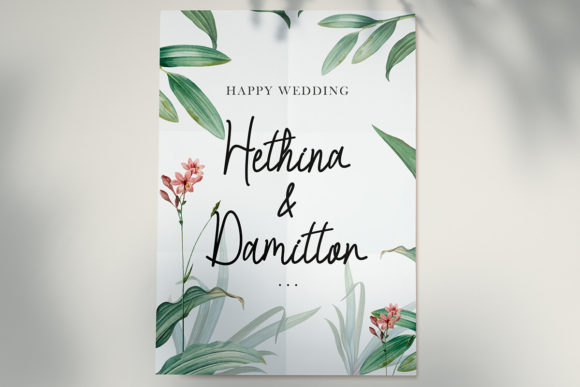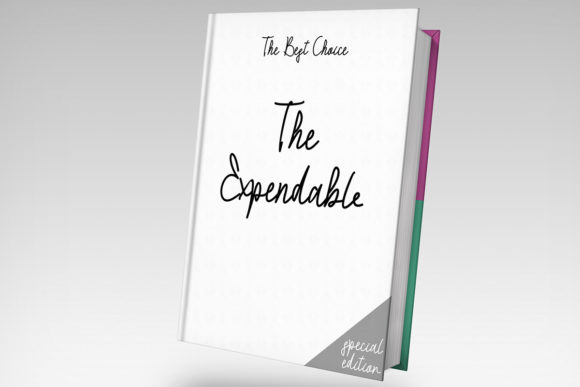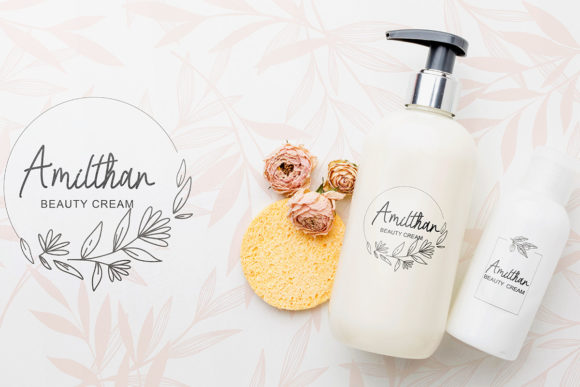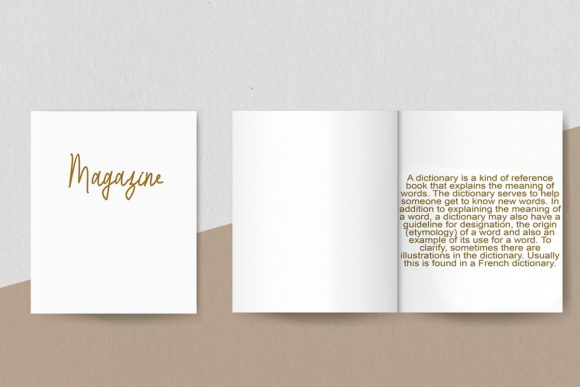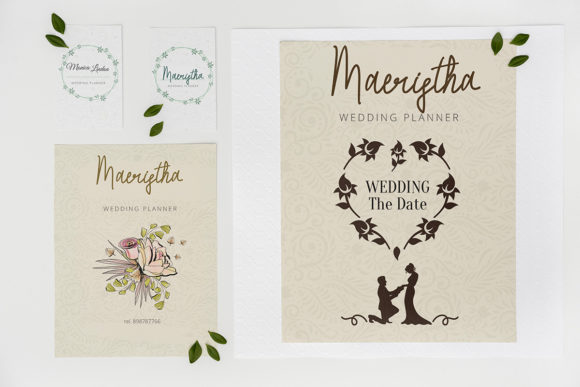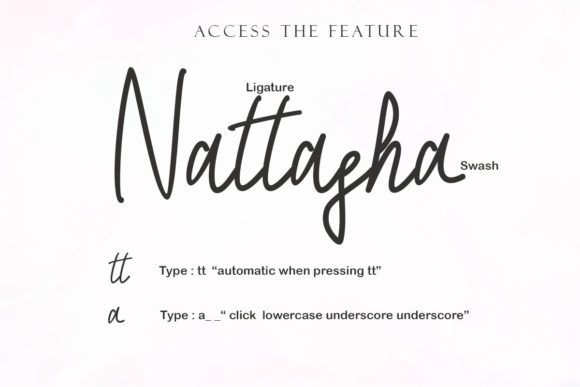
The High Moon Font: A Simple yet Powerful Script Font for Designers
Have you ever been in the middle of a design project, and suddenly, you just can’t seem to find the right font? I recall a particularly frustrating experience when a client asked for a custom wedding invitation design, and I was stuck on finding the perfect script font. That’s when I stumbled upon the High Moon font, and let me tell you, it was love at first sight! 💕
The High Moon font is a simple and fun script font that has become a staple in my design toolkit. Its effortless charm and versatility make it perfect for a wide range of projects, from wedding invitations to branding and packaging. In this article, I’ll share my experience with the High Moon font, its features, and how to make the most of it in your designs.
What I Love About High Moon Font
• PUA Encoding: The High Moon font is PUA encoded, which means you can access all the glyphs and swashes with ease! This feature makes it incredibly easy to customize your text and add a personal touch to your designs.
• Simple yet Elegant: The font’s simple and elegant design makes it perfect for a wide range of projects, from formal to informal.
• 🌈 Versatile: The High Moon font comes with a range of glyphs and swashes, making it easy to add a pop of color and personality to your designs.
While the High Moon font is an amazing addition to any design project, there are a few quirks to be aware of:
• 🤔 Limited Multilingual Support: The High Moon font may not support all languages, so be sure to check the font’s specifications before using it for a multilingual project.
• ⚠️ Glyph Compatibility: Some glyphs may not work seamlessly with all design software or platforms, so be sure to test them before finalizing your design.
The Story Behind High Moon Font
The High Moon font was designed by a talented type designer who’s passionate about creating beautiful, functional fonts. The designer’s inspiration for the High Moon font came from the simplicity and elegance of traditional script fonts, combined with the versatility of modern typography. The result is a font that’s both elegant and fun, perfect for a wide range of design projects.
Q: What is PUA encoding, and how does it work?
A: PUA (Private Use Area) encoding is a way of encoding fonts that allows designers to access additional glyphs and swashes. This means that you can easily customize your text and add a personal touch to your designs.
Q: How do I access the glyphs and swashes in the High Moon font?
A: You can access the glyphs and swashes in the High Moon font by using the OpenType features in your design software. This will vary depending on the software you’re using, but most design software, including Canva, Adobe Photoshop/Illustrator, and Microsoft Word, offer OpenType features.
Q: Is the High Moon font suitable for multilingual projects?
A: The High Moon font may not support all languages, so be sure to check the font’s specifications before using it for a multilingual project.